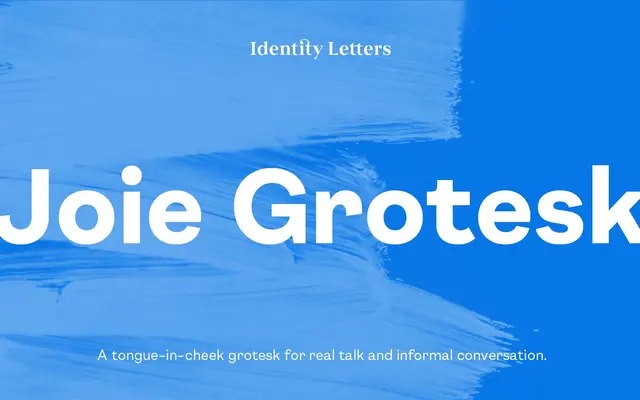
Joie Grotesk
An 18-style grotesque sans with early 19th-century references and a suite of stylistic alternates for adjusting its character.
Nine weights from Thin to Black, each with a matching italic and a variable font axis, give the family considerable range for editorial, branding and packaging work. Over a dozen stylistic sets allow fine-grained control of the warmth introduced by historical grotesque details, including single-storey a, triple-storey g and hook variants on d, l and u. The 750-plus glyph count covers Latin Extended with oldstyle figures, case-sensitive forms, discretionary ligatures and full fraction support.
A clean grotesque sans-serif drawing on early 19th-century grotesque conventions, with optional quirky alternates accessible via stylistic sets that soften its otherwise harmonious neutrality.